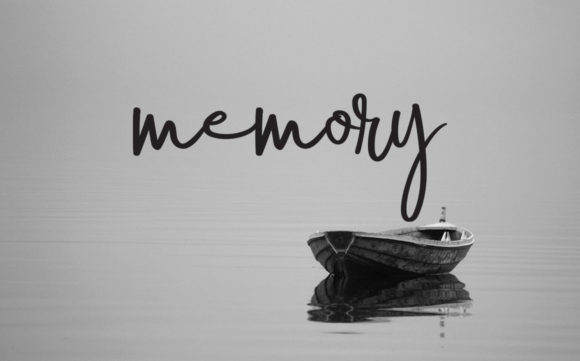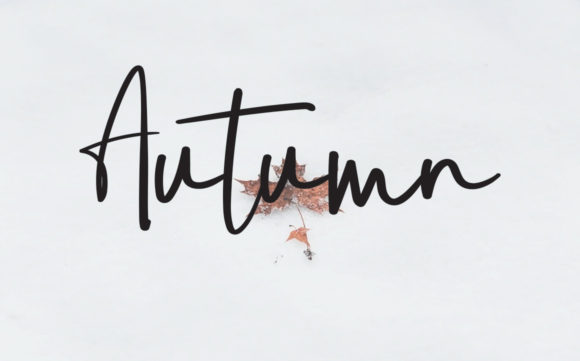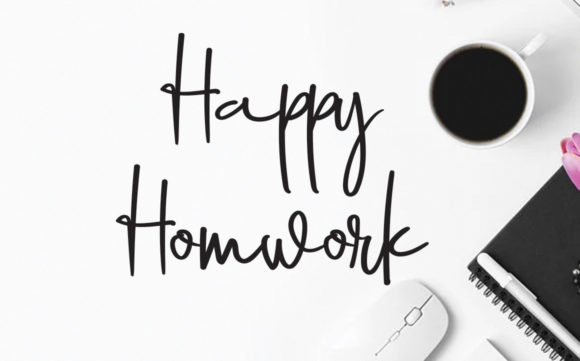
Introduction to Onions Font
Onions is a beautiful and flowing handwritten font.
Use it for wall displays, wedding invitations, social media post logos, advertisements, product packaging, product designs, labels, photography, watermarks, invitations, stationery, and any project that requires impressive typography .
Onions Font offers exceptional quality and versatility, making it a valuable addition to your design toolkit. Whether you’re creating for personal projects or commercial use, Onions Font delivers professional results.